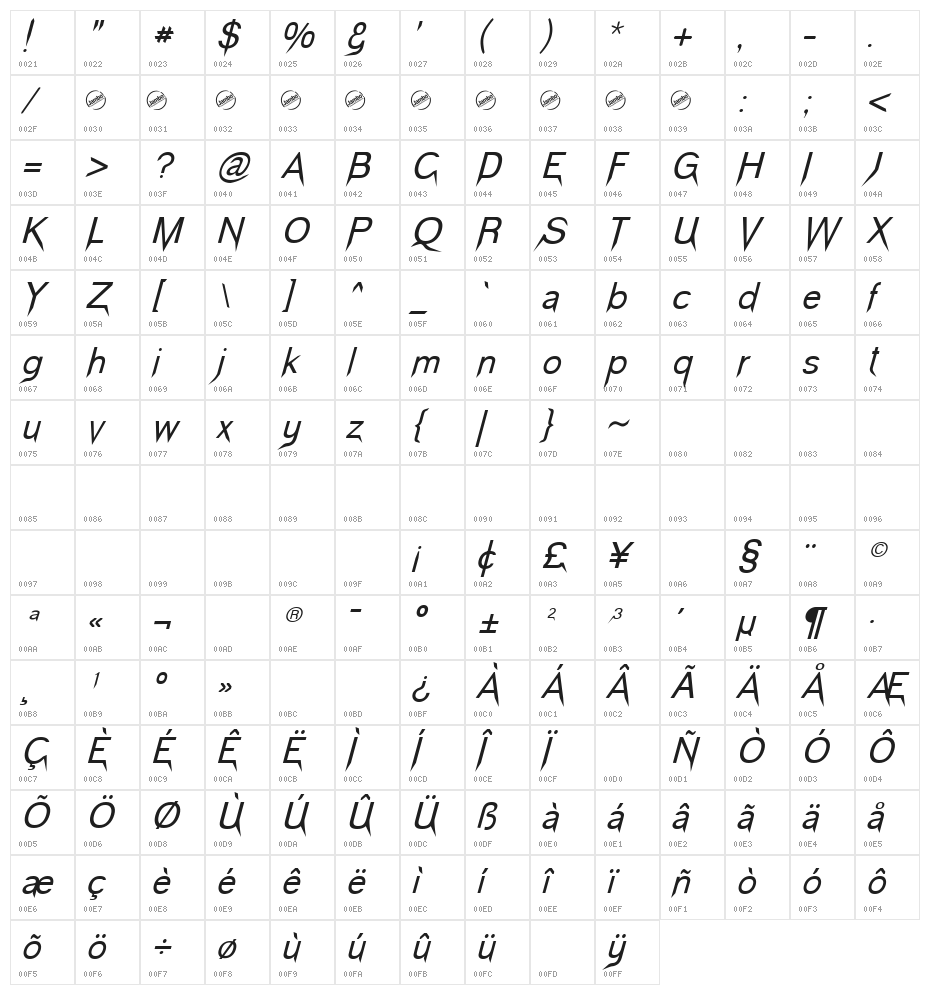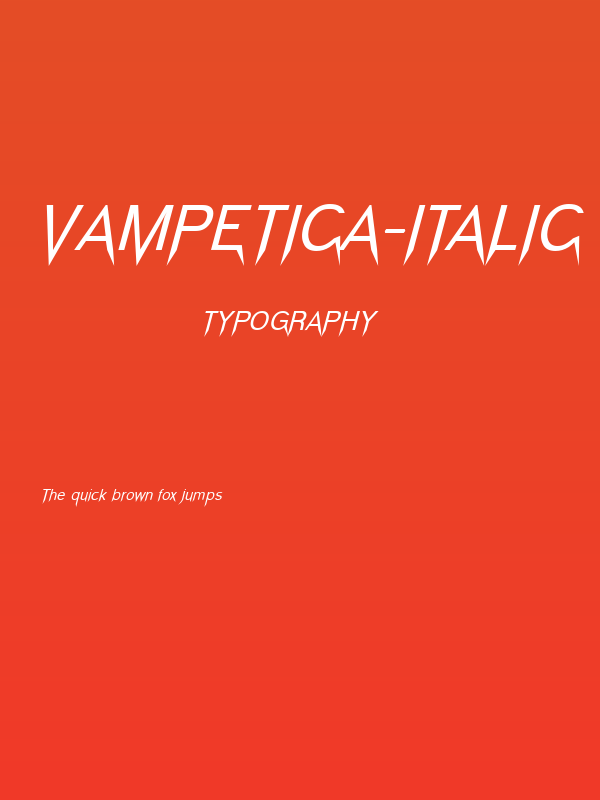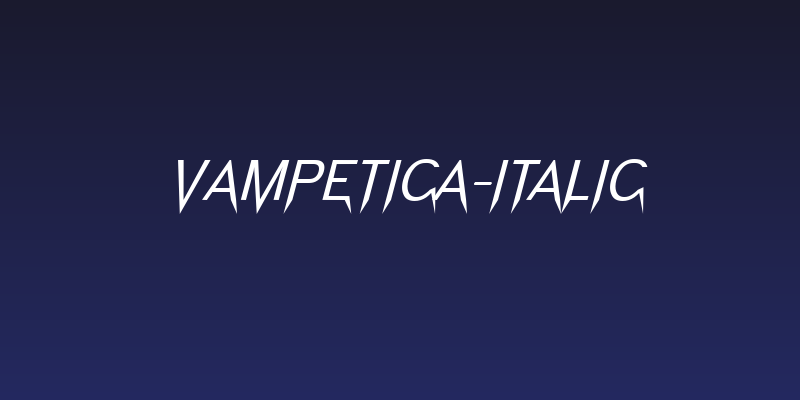
Vampetica-Italic Font
Vampetica-Italic Description
This font features a dynamic and modern italic style with sharp, angular edges that give it a distinctive and edgy appearance. The uppercase letters are bold and commanding, while the lowercase letters maintain a consistent slant, enhancing the font's sleek and contemporary look. The numerals and special characters are designed to complement the overall aesthetic, making it suitable for a variety of creative applications. The font's unique style is further emphasized by its consistent character spacing, which provides a balanced and harmonious visual flow.
| Proposed Projects | Ideal for branding, advertising, posters, and any project requiring a bold, modern aesthetic. |